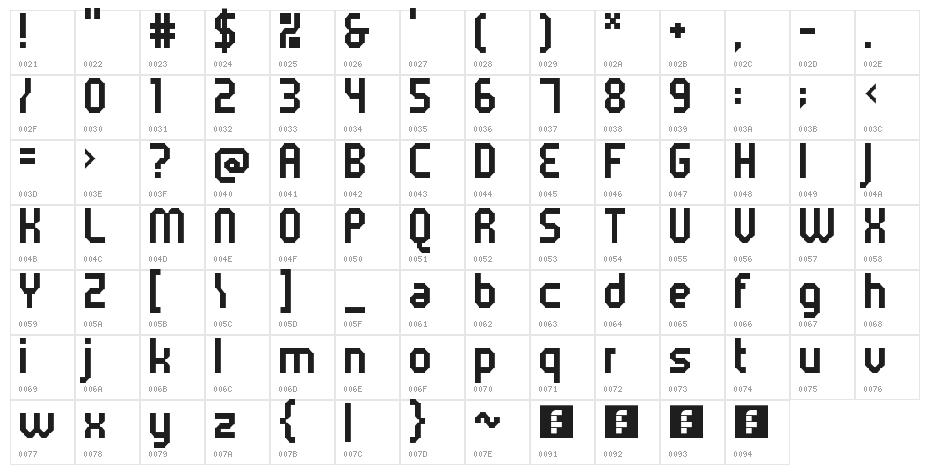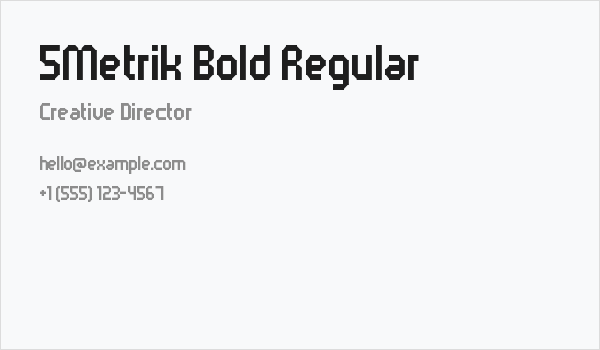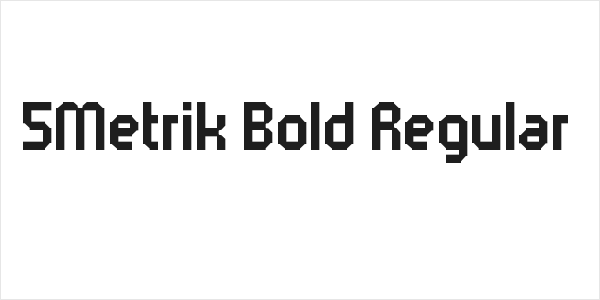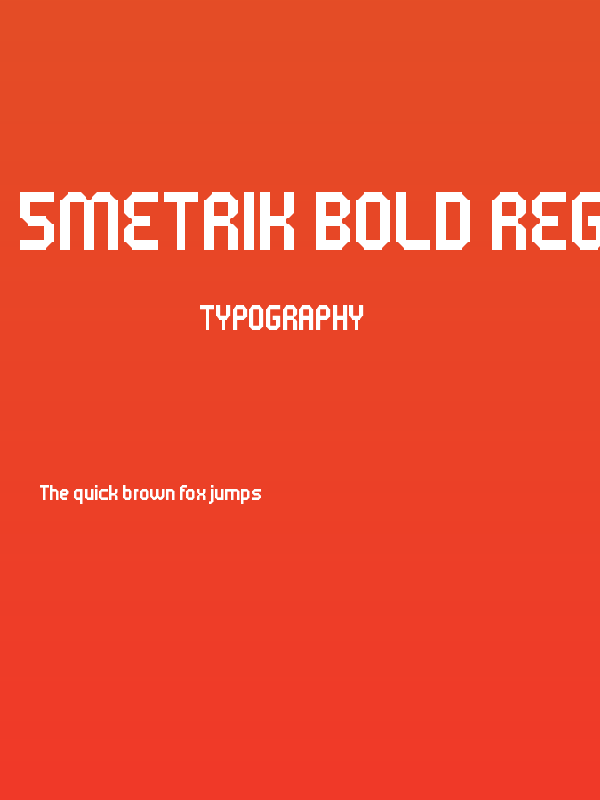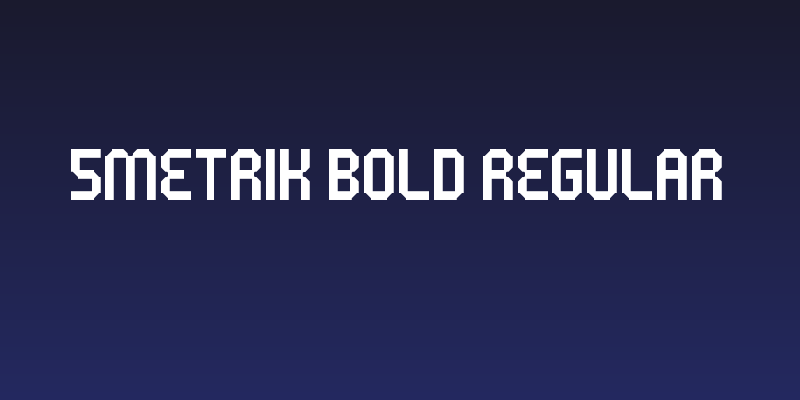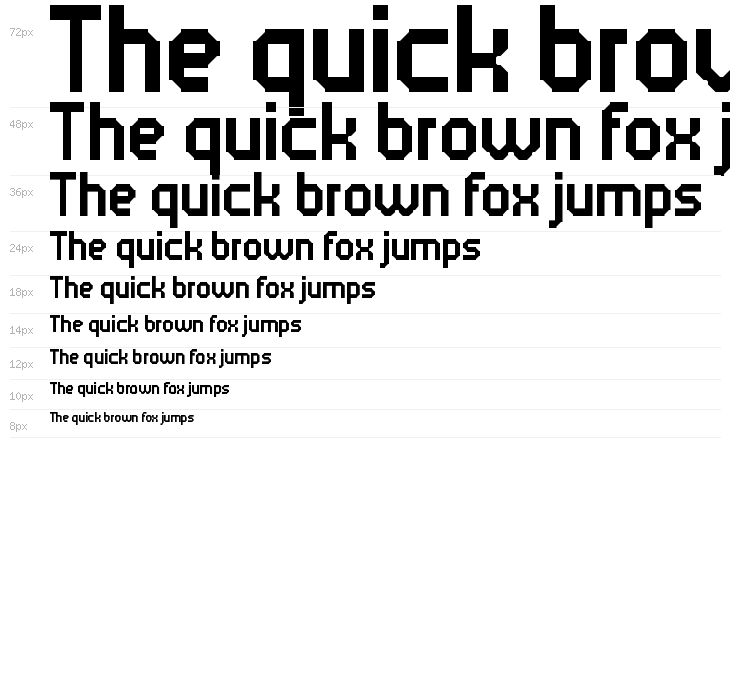
5Metrik Bold Regular Font
5Metrik Bold Regular Description
This font features a bold and geometric design with a distinct blocky appearance. The characters are constructed with straight lines and sharp angles, giving it a modern and industrial feel. The uppercase and lowercase letters maintain a consistent width, contributing to a uniform look. The numerals and special characters follow the same geometric style, ensuring cohesion across all elements. The font's strong presence makes it suitable for attention-grabbing designs.
| Proposed Projects | Ideal for branding, posters, headlines, and any design requiring a strong, modern aesthetic. |